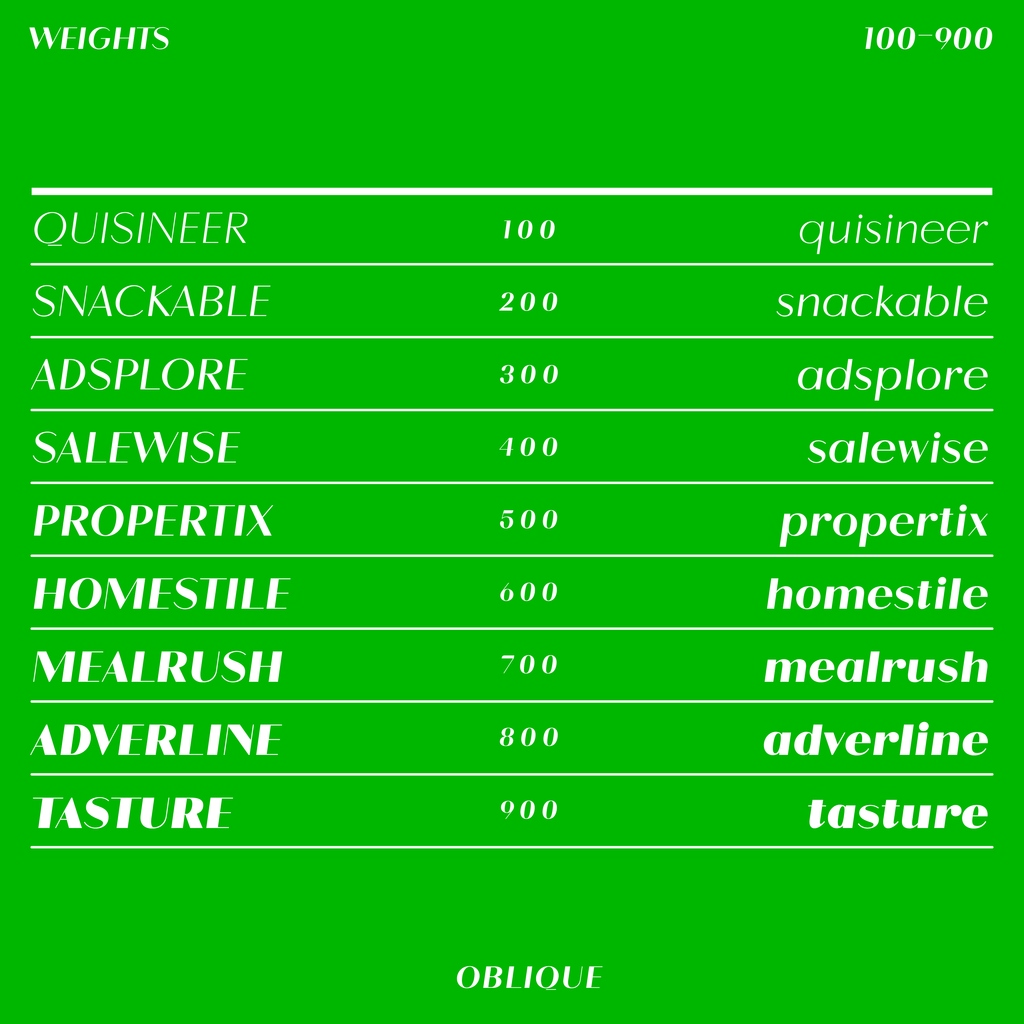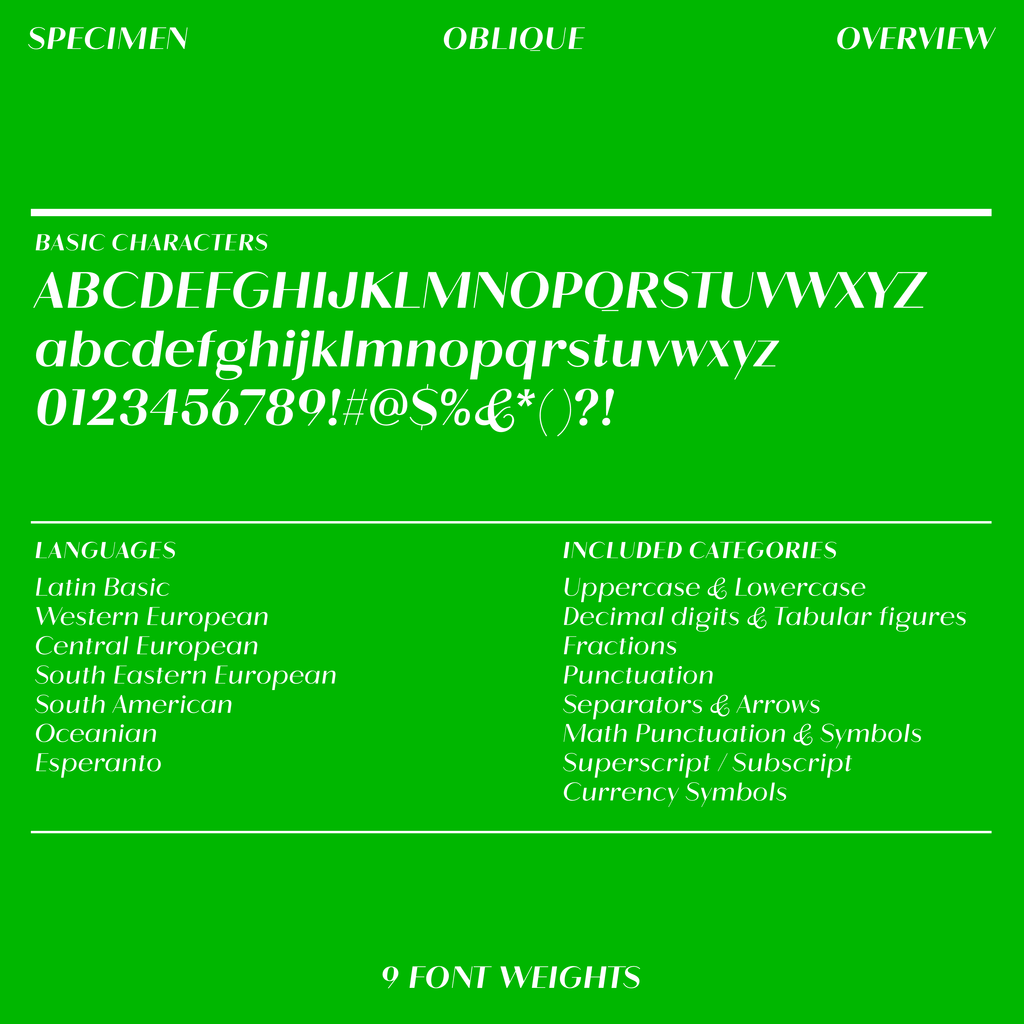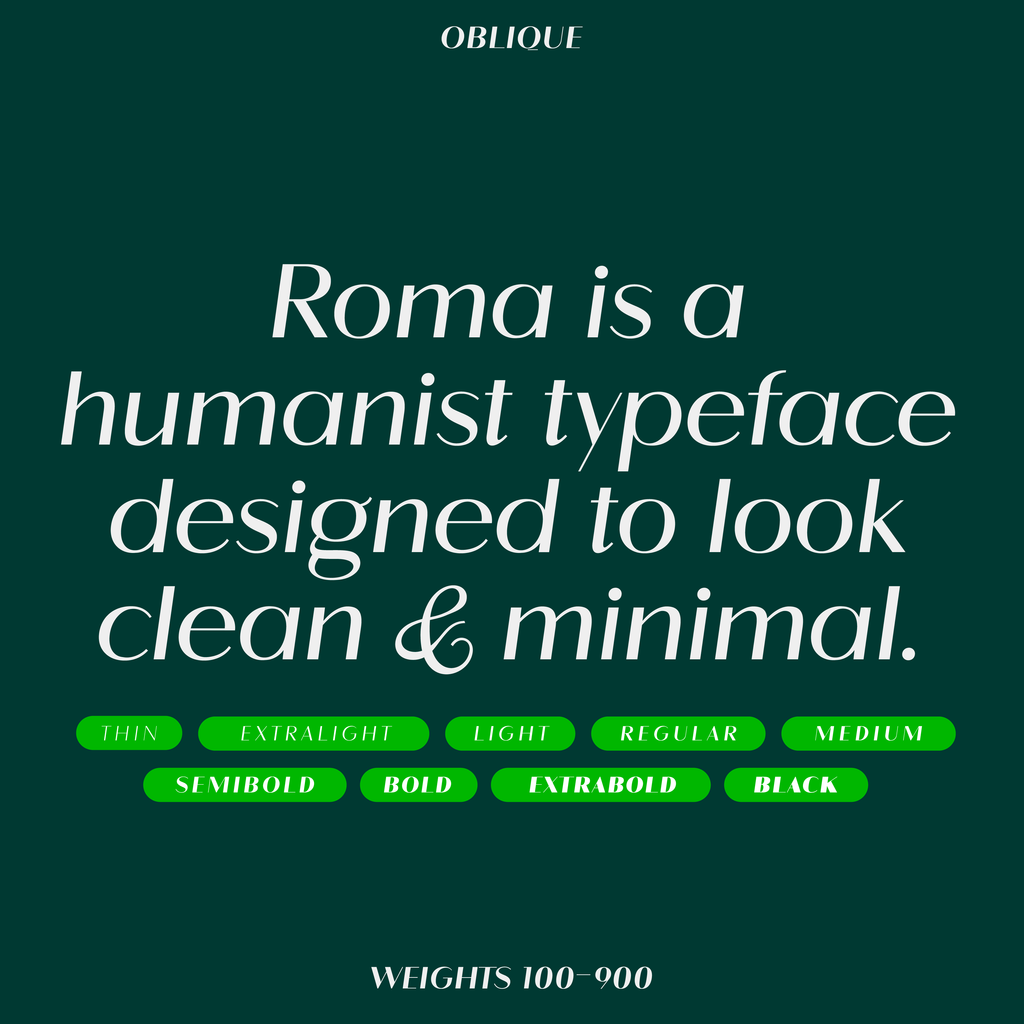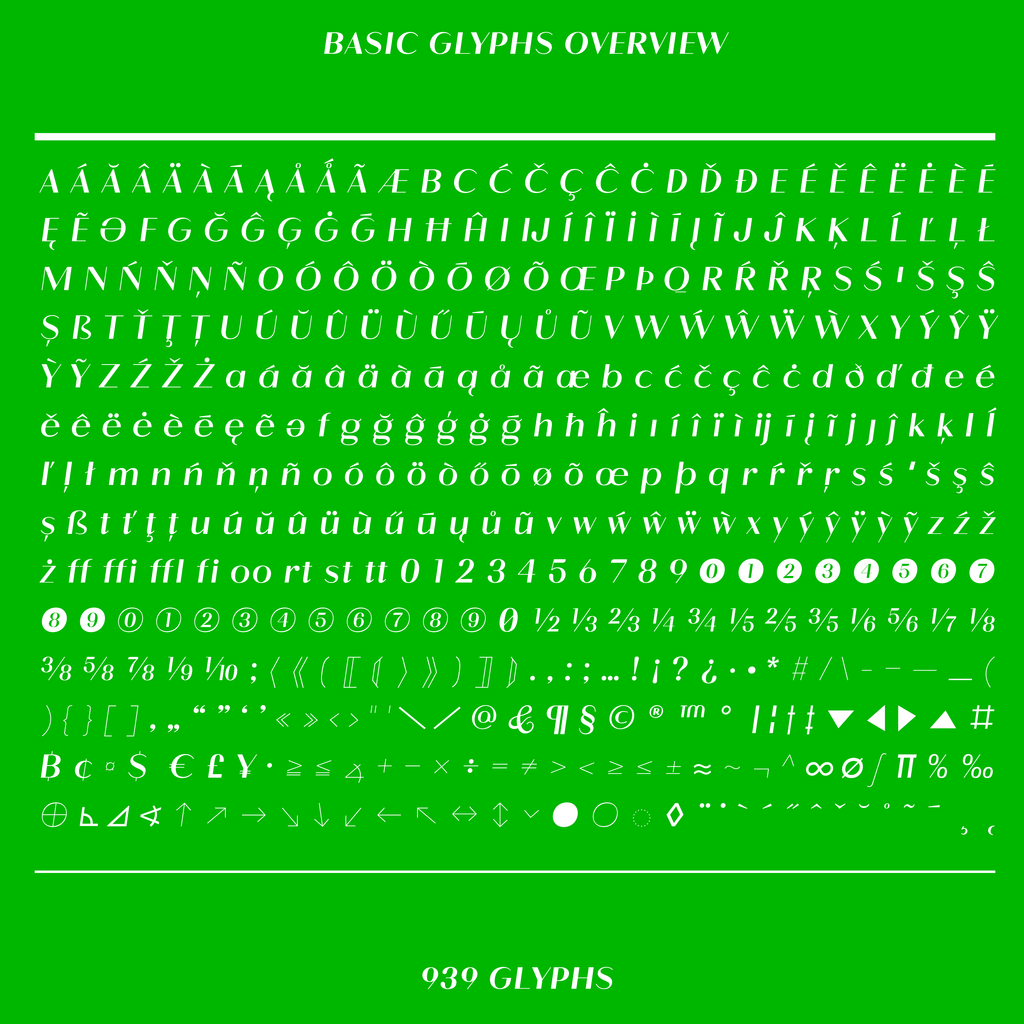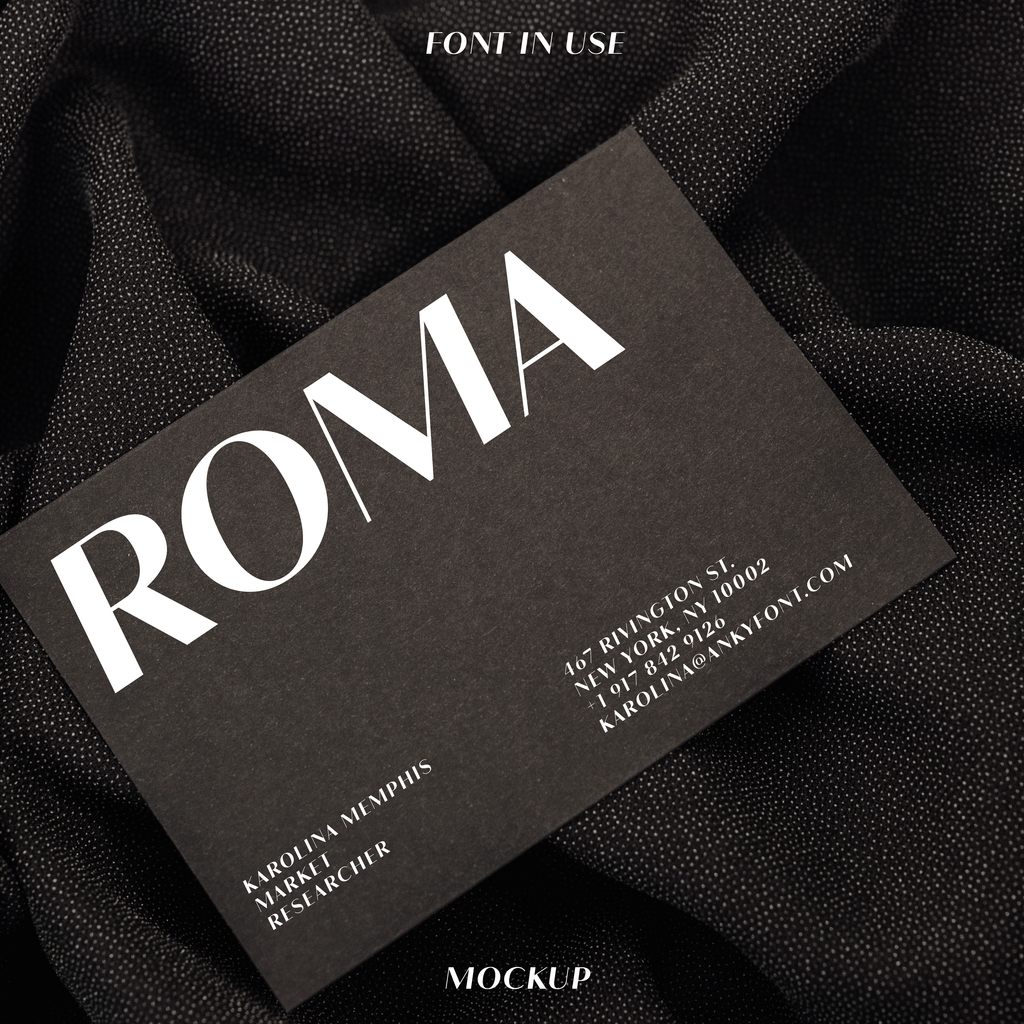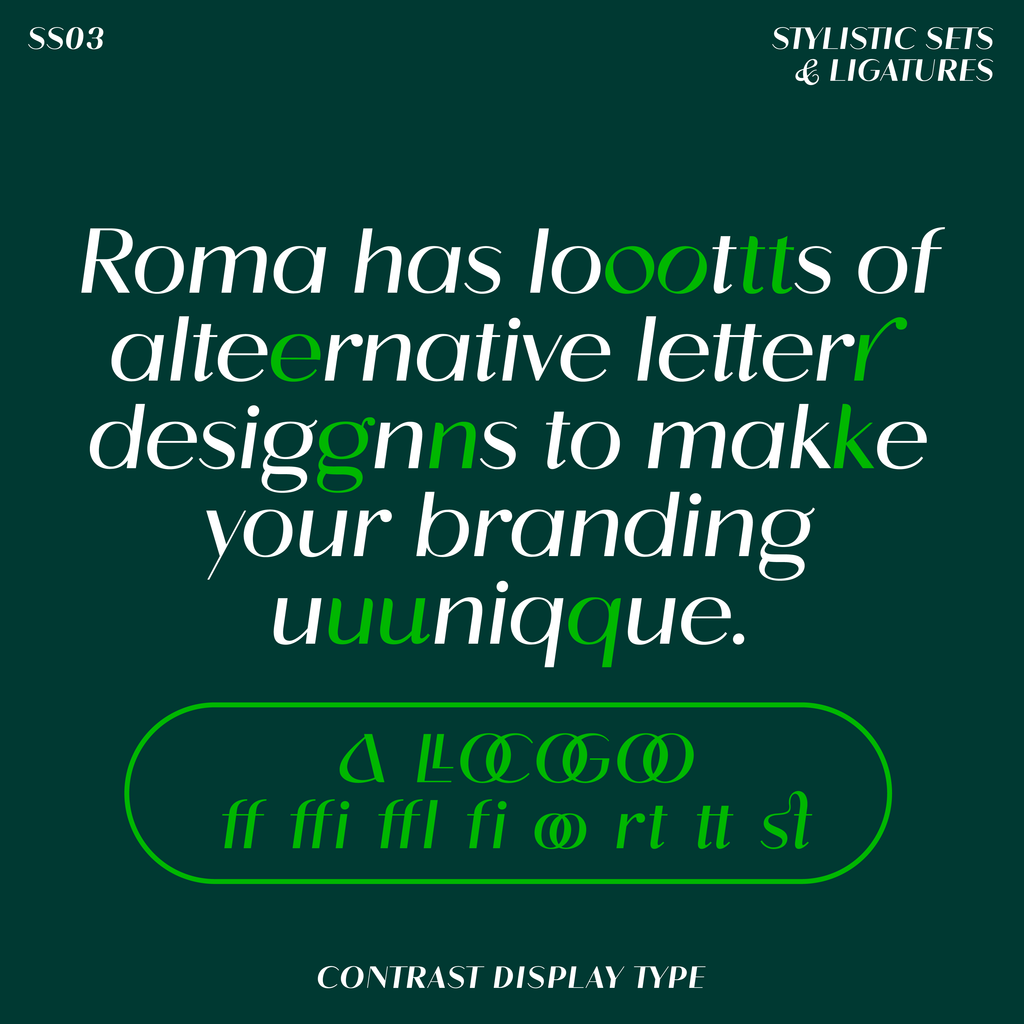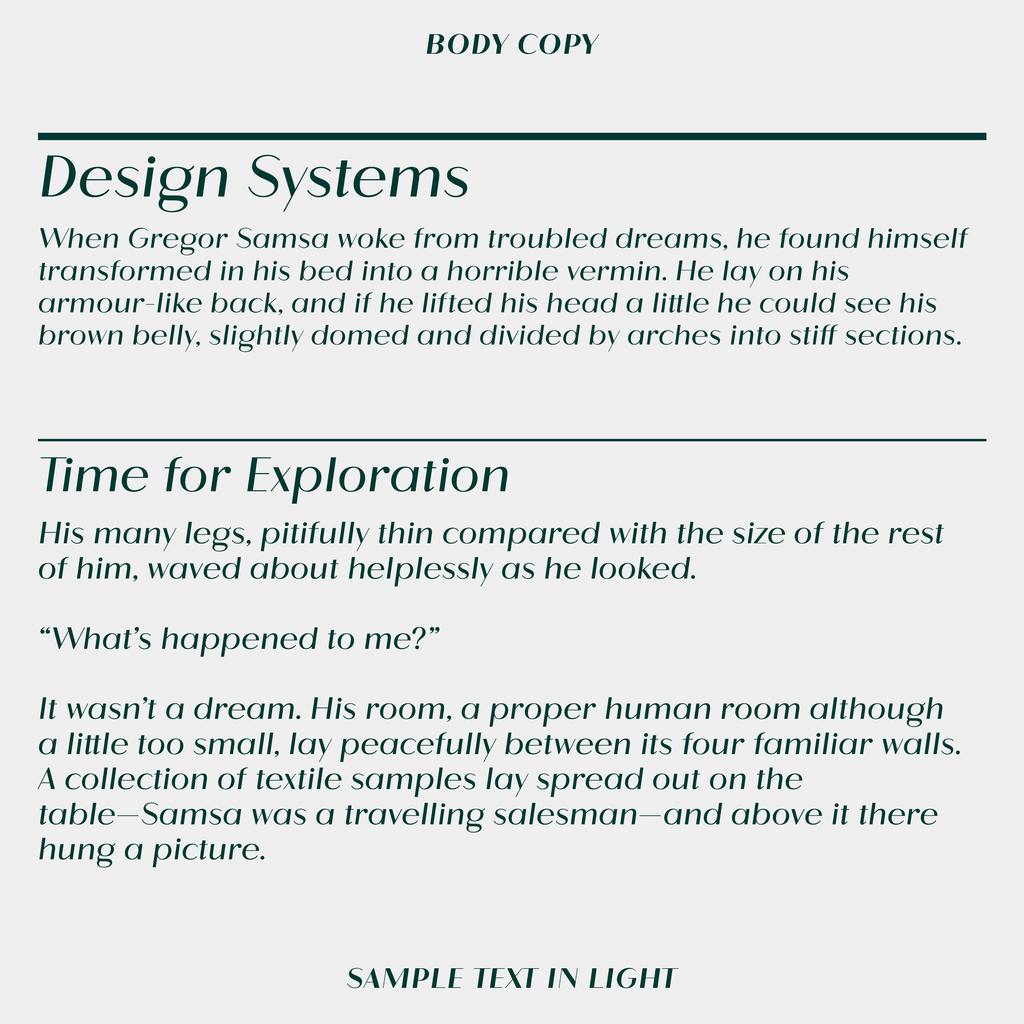
Roma—Sans-serif contrast typeface (OBLIQUE)
Roma Oblique is the italic version of the Roma typeface. Roma is a contrast humanist typeface with a geometric frame, designed to look clean & minimal. This font is perfect for fashion, beauty, and wellness branding. Roma has plenty of alternative letters to create a unique and even organic style.
Available in 9 weights, upright and oblique (italic) styles.